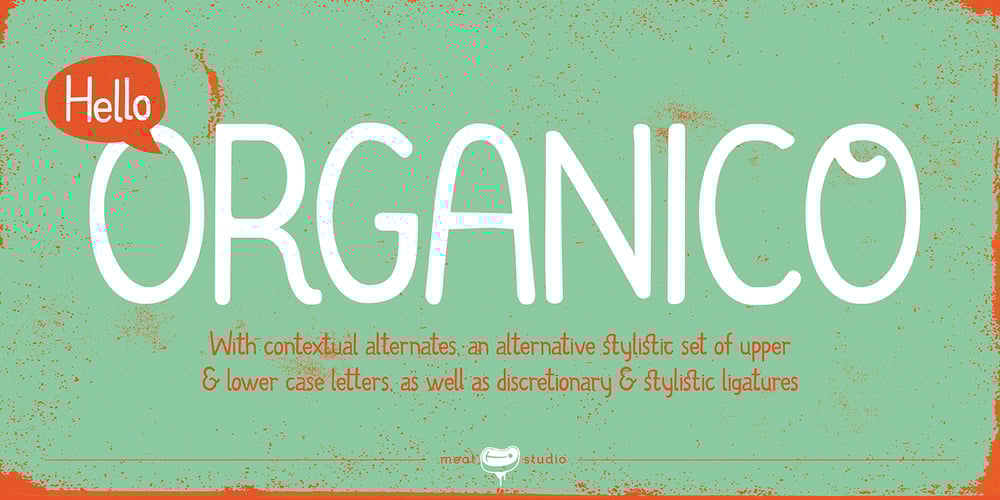
Organico Font Family was designed by Stew Deane and published by Meat Studio. Organico contains 1 styles and family package options. Organico was created as an organic, hand made font. It is designed to be adaptable and useable across a wide range of markets, brands and disciplines. It has upper and lowercase characters with alternatives for all, as well as all the other glyphs you’d expect. It also utilises a number of opentype features, such as standard and discretionary ligatures, contextual alternates and stylistic sets.